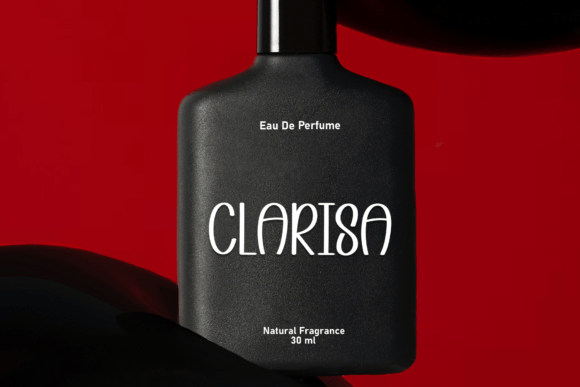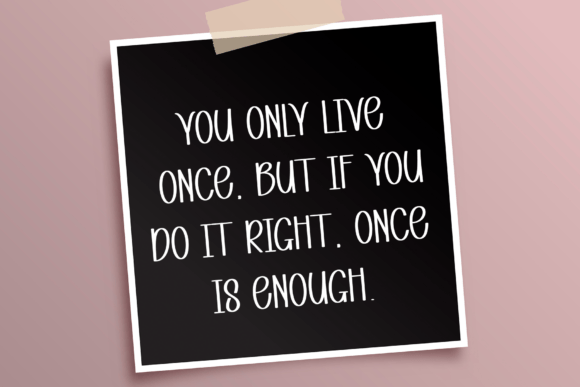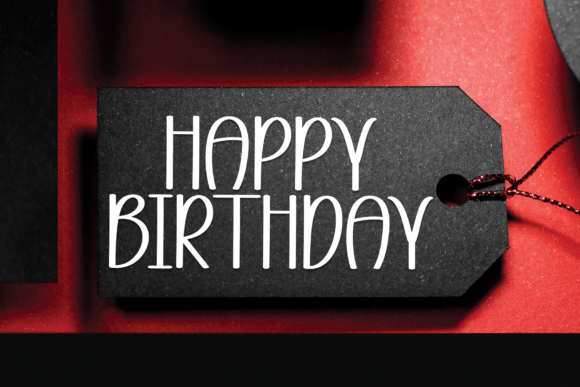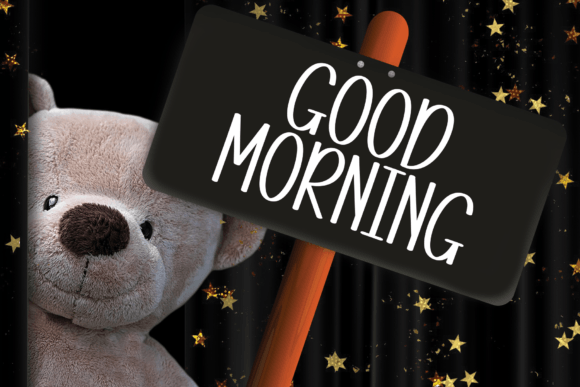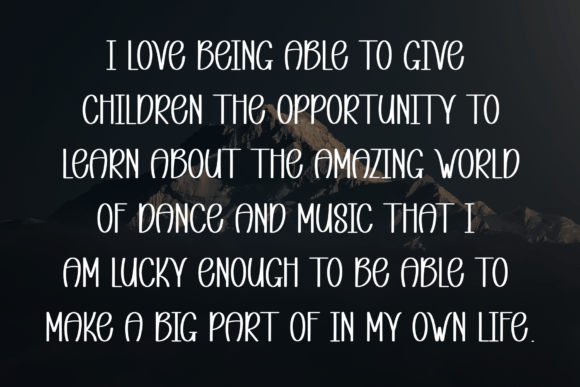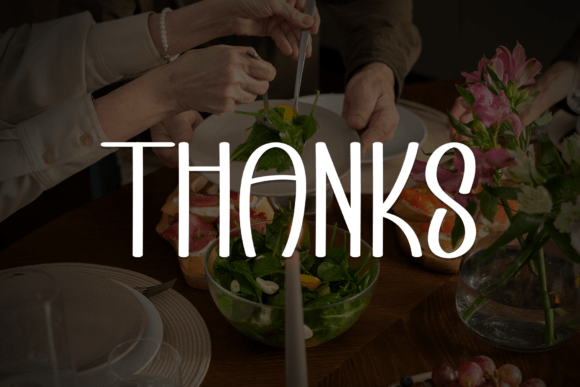
Dinner Memories Font: A Charming and Warm Display Font for Your Designs
Are you looking for a font that can add a touch of warmth and personality to your designs? Look no further than the Dinner Memories font. This delightful font is perfect for creating wedding invites, personalized greeting cards, and other designs that require an enchanting character. In this article, we’ll explore the features and benefits of the Dinner Memories font and why it’s a must-have for designers and crafters.
A Handcrafted Personality
The Dinner Memories font boasts a remarkable blend of handcrafted personality, making it a unique and captivating display font. Its lighthearted yet charming appeal is perfect for adding a pleasant demeanor to your designs. The font’s playful and whimsical nature makes it an excellent choice for creating designs that require a personal touch.
Perfect for Wedding Invites and Greeting Cards
The Dinner Memories font is an ideal choice for crafting wedding invites, personalized greeting cards, and other special occasion designs. Its enchanting character and heartwarming sentiment make it perfect for creating memorable and meaningful designs. Whether you’re a designer or a crafter, this font is sure to inspire you to create something truly special.
Key Features of Dinner Memories Font
- Handcrafted personality: The font boasts a unique and captivating handcrafted personality that adds a touch of warmth to your designs.
- Lighthearted and playful: The font’s lighthearted and playful appeal makes it perfect for creating designs that require a pleasant demeanor.
- Enchanting character: The font’s enchanting character makes it perfect for creating memorable and meaningful designs.
- Heartwarming sentiment: The font infuses a heartwarming sentiment into every creation, making it perfect for special occasion designs.
Benefits of Using Dinner Memories Font
Using the Dinner Memories font in your designs offers several benefits, including:
- Unique and captivating designs: The font’s handcrafted personality and playful appeal make it perfect for creating unique and captivating designs.
- Emotional connection: The font’s heartwarming sentiment helps create an emotional connection with your audience, making your designs more memorable and meaningful.
- Versatility: The font is perfect for a variety of design applications, including wedding invites, greeting cards, and other special occasion designs.
Tips for Using Dinner Memories Font
Here are some tips for using the Dinner Memories font in your designs:
- Pair with complementary fonts: Pair the Dinner Memories font with complementary fonts to create a unique and visually appealing design.
- Use for headlines and titles: Use the font for headlines and titles to add a touch of personality and whimsy to your designs.
- Experiment with colors: Experiment with different colors to find the perfect combination that complements the font’s warm and playful appeal.
The Dinner Memories font is a charming and warm display font that’s perfect for designers and crafters looking to add a touch of personality to their designs. Its handcrafted personality, lighthearted appeal, and enchanting character make it an ideal choice for creating wedding invites, personalized greeting cards, and other special occasion designs. With its versatility and emotional connection, this font is sure to inspire you to create something truly special.